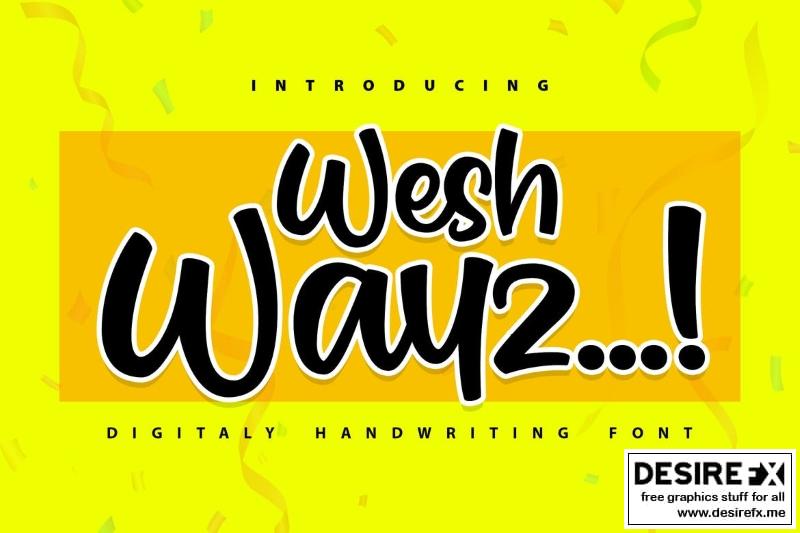
Weshwayz | Digitaly Handwriting Font
Weshwayz | Digitaly Handwriting Font with a calligraphy style, So beautiful on invitation like greeting cards, branding materials, business cards, quotes, posters, and more!
Tons of glyphs
Alternates and Ligatures